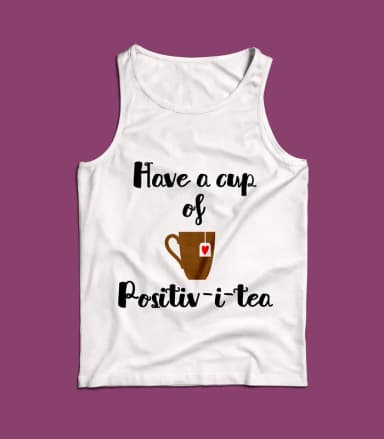
Spring Blossom Font by Kreations is a flowing script typeface that channels the delicate sophistication of floral season with its organic letterforms and understated elegance. The design carries a handwritten sensibility that feels both personal and refined, making it well-suited for projects requiring warmth without sacrificing polish.
This font excels across distinctly different applications: from hand-drawn branding for artisan shops and boutiques, to custom envelope addressing for formal celebrations, wedding invitation suites with coordinating details, and small-batch product labeling for indie makers on platforms like Etsy. The script's balanced proportions work equally well at large display sizes or smaller text applications, giving it genuine versatility across scale and purpose. Its organic letterforms maintain legibility even when layered or modified, a practical advantage for designers experimenting with overlapping elements.
Spring Blossom Font is a script font that shines as a display or heading face. Pair it with a clean sans-serif or serif font for body text — the contrast creates a clear hierarchy while the two styles stay balanced and easy to read.